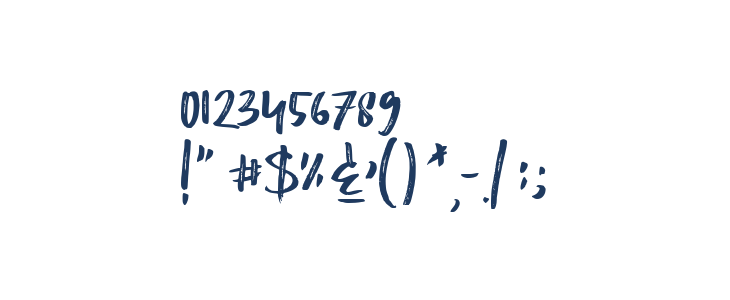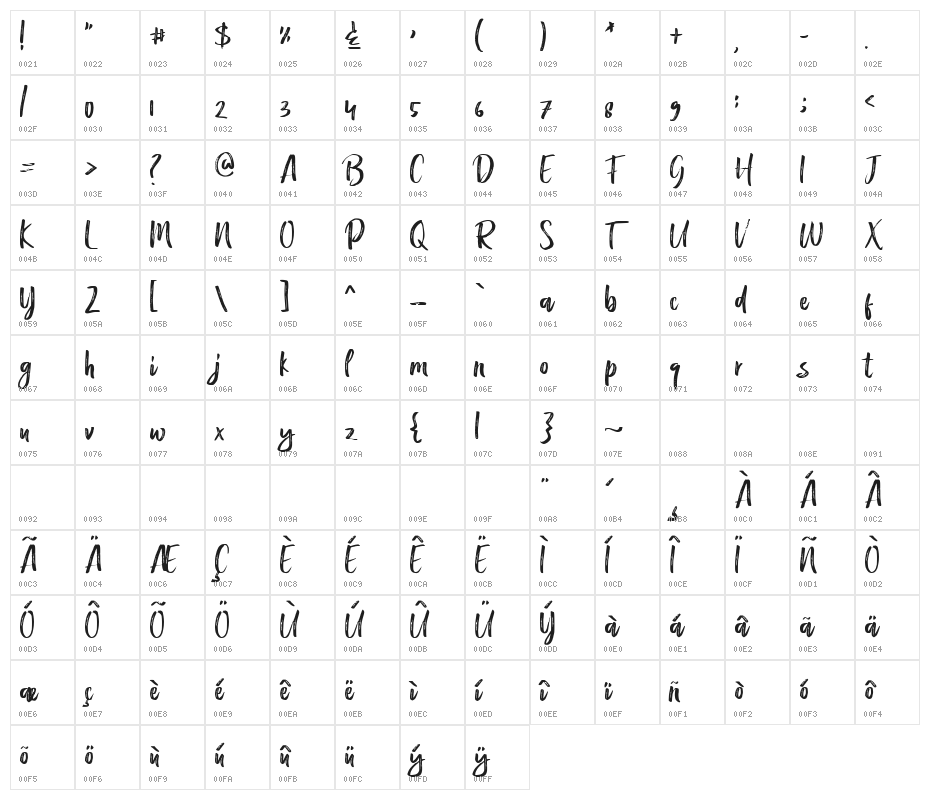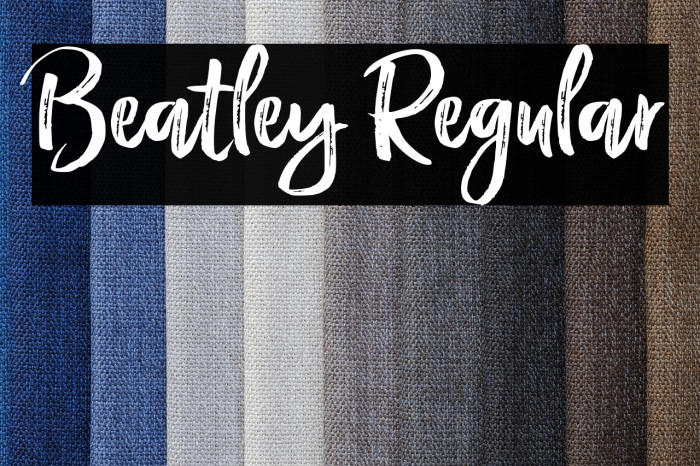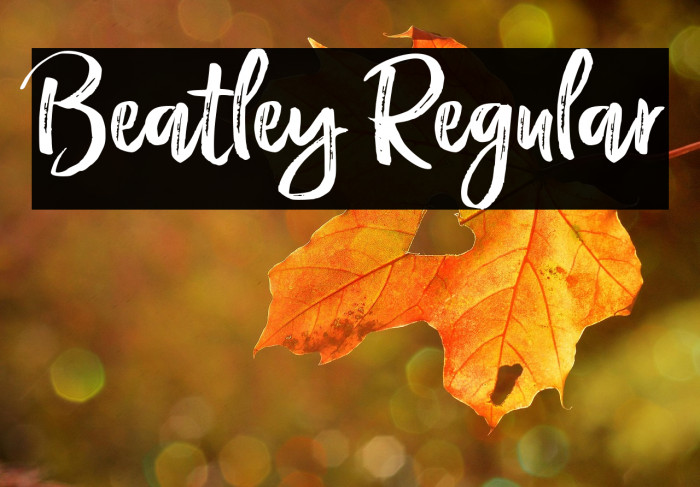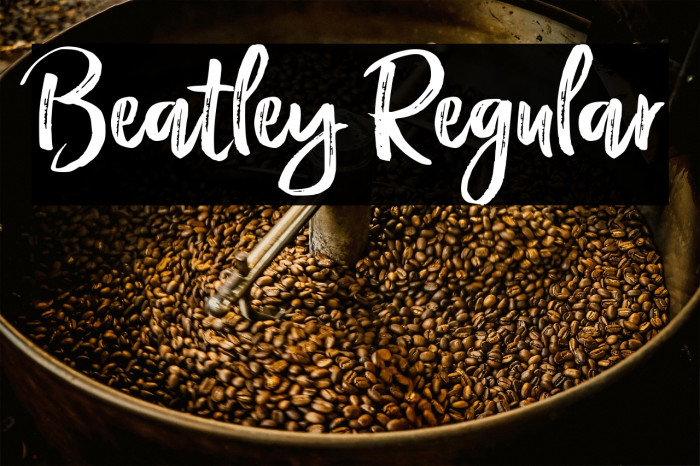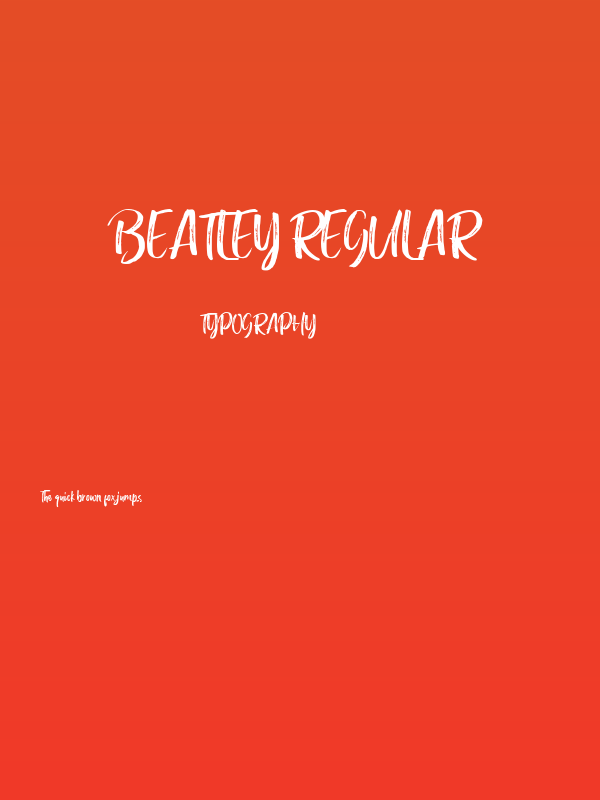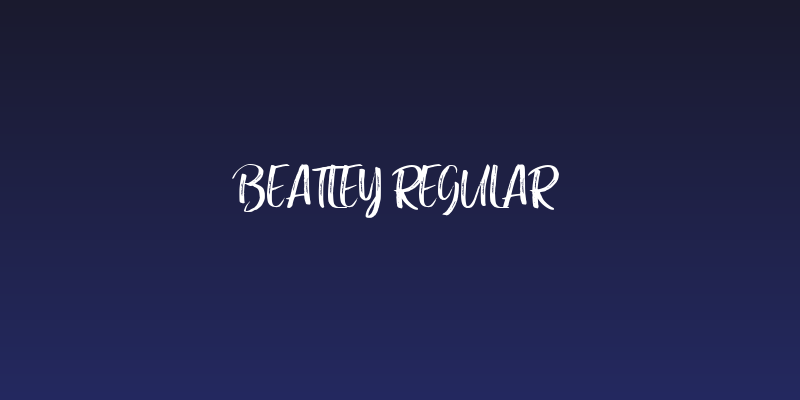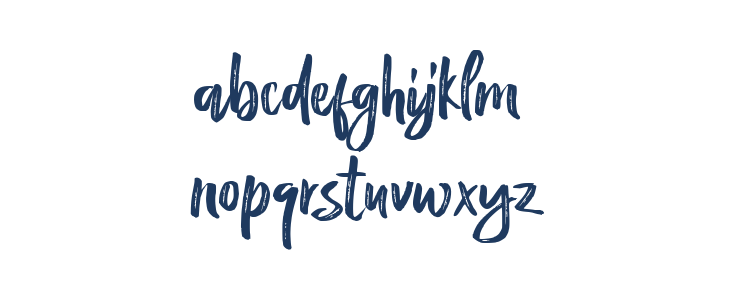
This font exudes a dynamic and energetic feel with its bold, brush-like strokes. The letters are crafted with a sense of movement, giving an impression of spontaneity and artistic flair. The uppercase characters are particularly striking, with varying stroke widths that add a sense of rhythm and flow. The lowercase letters maintain this lively style, offering a cohesive look across the alphabet. Numbers and special characters are equally expressive, making this font versatile for various creative applications. Its handwritten style is both modern and approachable, perfect for projects that require a personal touch.
| Use Case | Logos, Headlines, Posters |
| Proposed Projects | Ideal for branding, posters, invitations, and any design requiring a personal, artistic touch. |